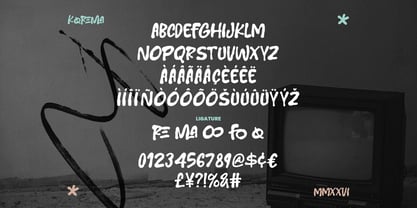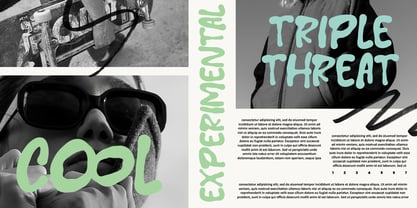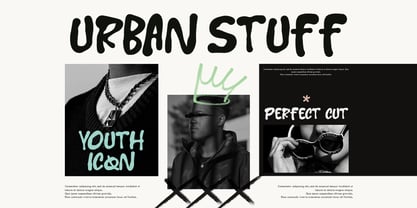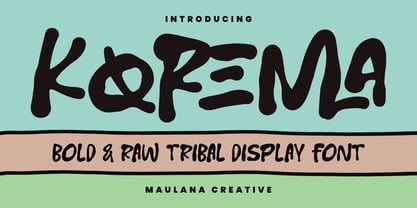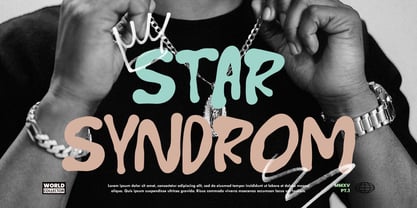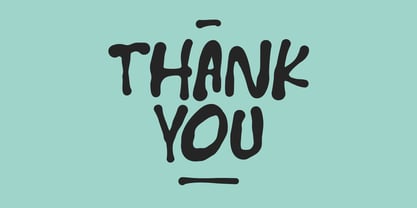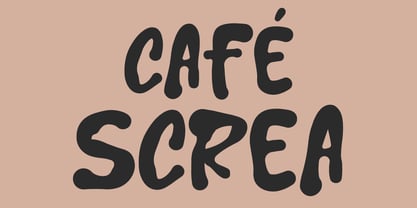
MC Korema
par Maulana Creative
La famille de polices MC Korema a été conçue par Gilang Maulana et publiée par Maulana Creative. MC Korema contient 1 styles. En savoir plus sur cette famille
Korema is a striking display font that blends raw, organic energy with a modern urban tribal aesthetic. Characterized by its heavy, hand-drawn strokes and unique experimental ligatures, this font captures an authentic, street style vibe. Its bold and slightly irregular letterforms make it perfect for standout branding, edgy posters, and creative editorial layouts. Whether you're aiming for a youth-culture look or a rugged, artisanal feel, Korema provides a powerful, tactile presence to any design project.
Concepteurs: Gilang Maulana
Fonderie: Maulana Creative